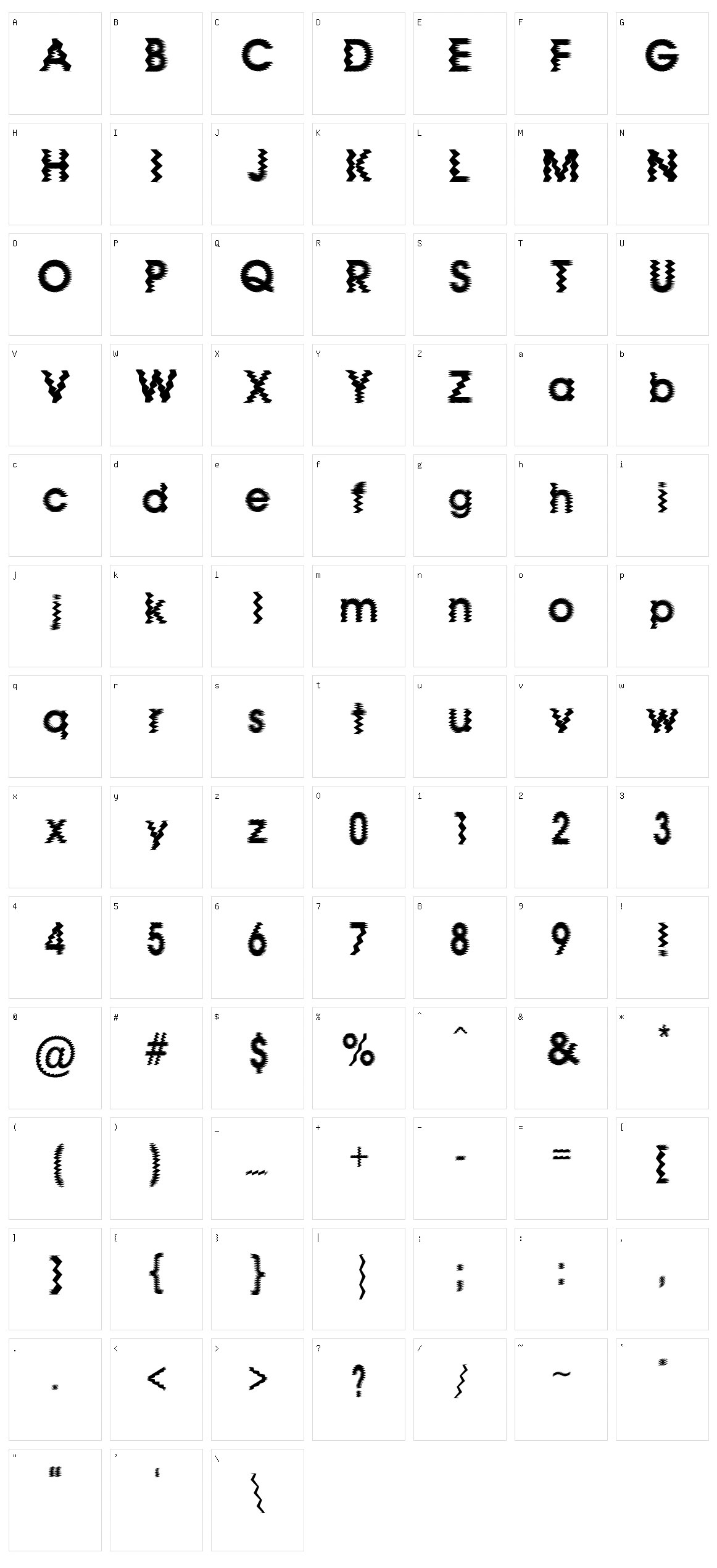
The free font Untitled In Motion is carefully designed by Untitled Motion, showcasing a thoughtful balance of creativity and usability and falls under the Distorted font style. When you download the ZIP file, it contains only 87.6 KB of font files, making it lightweight and quick to download. Please review the license details below to understand permitted usage and distribution rights. If license information is not available, we recommend using this font for personal projects only or contacting the author directly for commercial usage permissions.